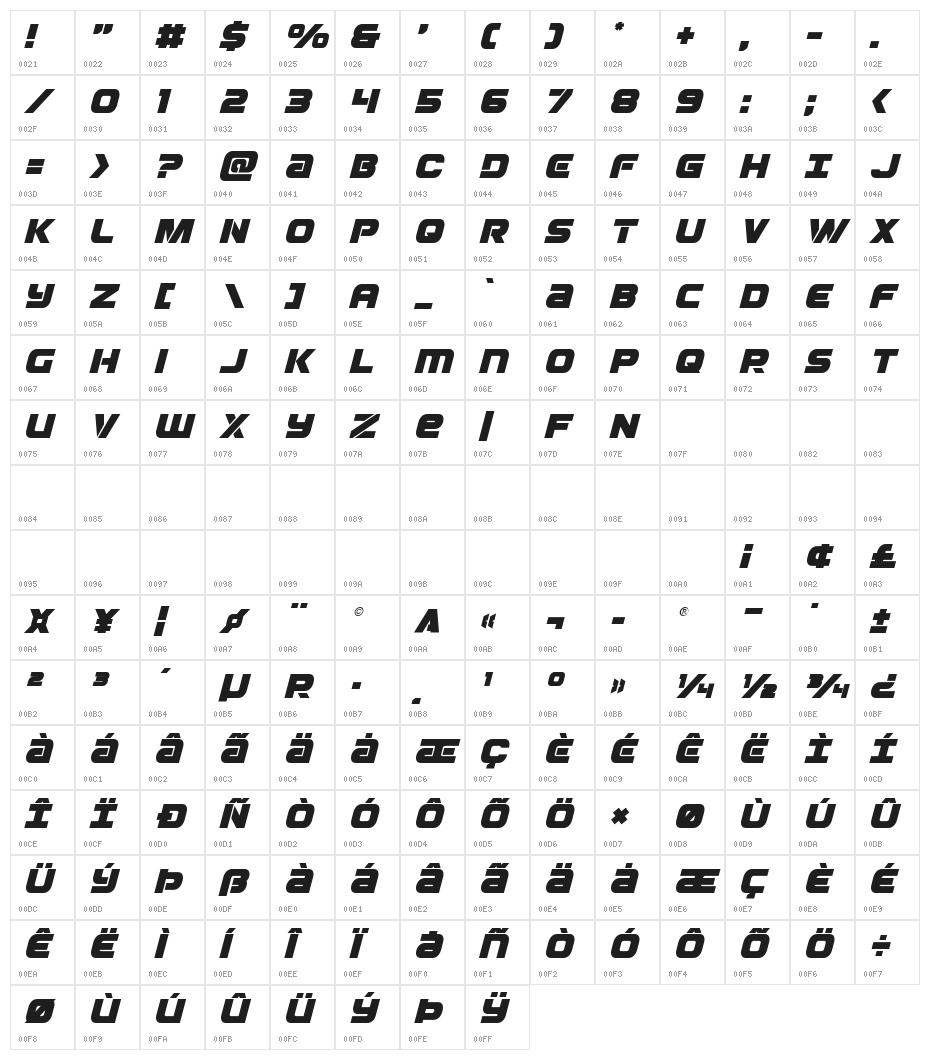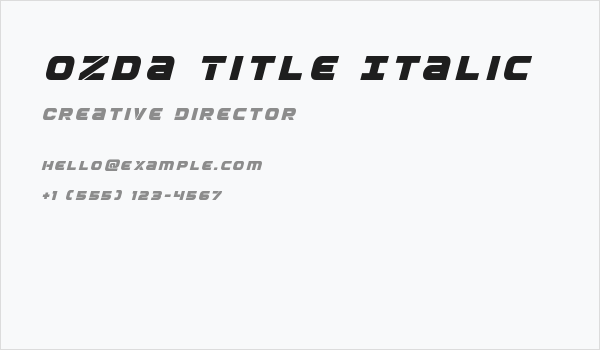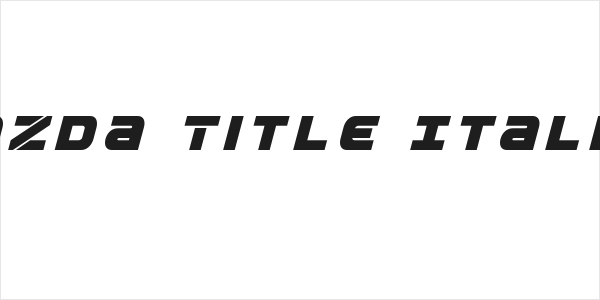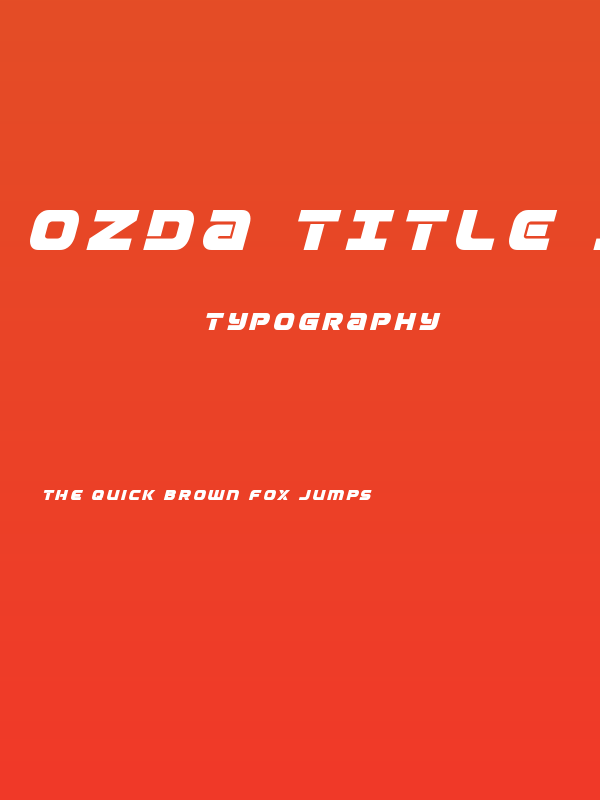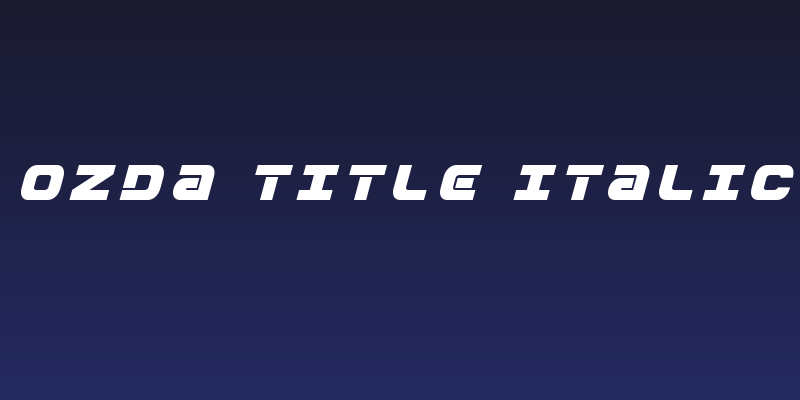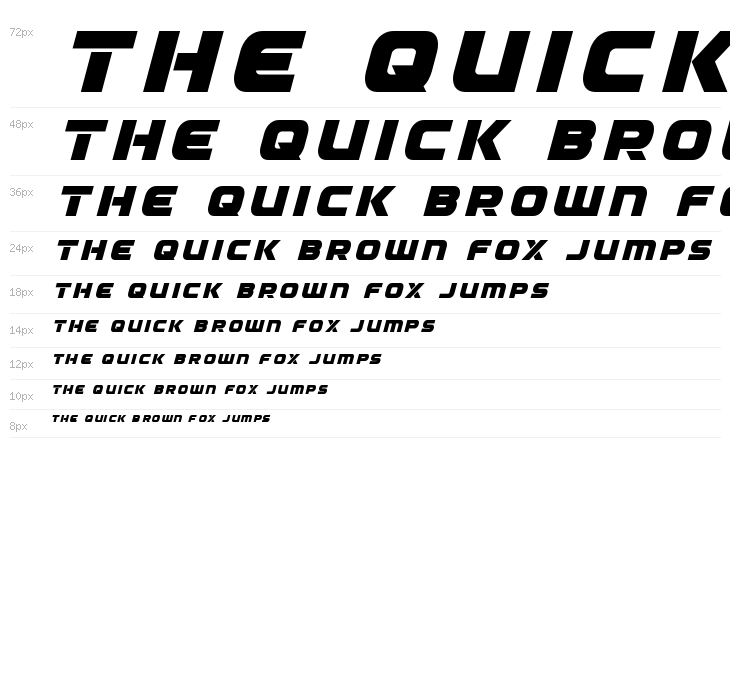
Ozda Title Italic Font
Ozda Title Italic Description
This font features a bold and dynamic style with a strong italic slant, giving it a sense of motion and energy. The characters are wide and robust, with a modern, futuristic appearance. The strokes are thick and consistent, providing a high contrast that enhances readability. The design is sleek and angular, with sharp edges and clean lines, making it suitable for impactful and attention-grabbing text. The spacing between characters is tight, contributing to its compact and cohesive look.
| Proposed Projects | Ideal for sports branding, tech logos, dynamic posters, and futuristic designs. |